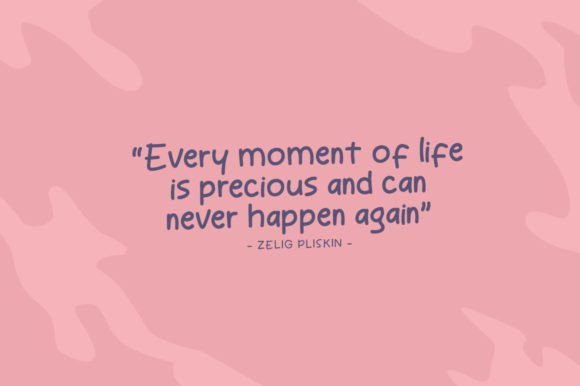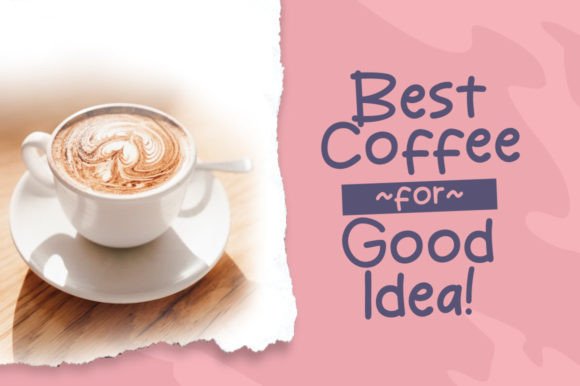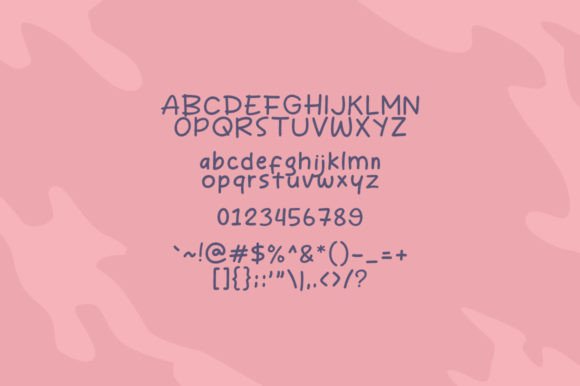
Introduction to Howlimit Font
As a designer, have you ever stared at a blank canvas, eager to bring your creative vision to life, only to be stumped by the perfect font? The struggle is real, but what if I told you that there’s a game-changing font that can elevate your designs and make them truly stand out? Say hello to the Howlimit Font, a modern and fancy display font that’s perfect for posters, logos, magazines, book covers, banners, and so much more.
With its sleek and sophisticated design, the Howlimit Font is a valuable resource for designers who want to add a touch of elegance to their creative projects. Whether you’re working on a high-end marketing campaign or a personal art project, this font is sure to impress. Plus, its transparent background makes it easy to match with any design element, giving you the freedom to be creative and experiment with different looks.
Key Features of Howlimit Font
- Unique characteristics: A modern, sans-serif font with a clean and minimalist aesthetic, perfect for creating a professional and sophisticated look.
Honest Review: Howlimit Font
As a designer, I’m always on the lookout for high-quality design resources to enhance my creative projects. The Howlimit Font caught my attention with its unique style and versatility.
- ✨ Unique and creative font style that adds a touch of sophistication to any design project.
- ✨ High-quality design that’s suitable for both print and digital projects.
- ⚠️ Limited font variations, which may not be ideal for designers who prefer a wider range of options.
Overall, I’m impressed with the Howlimit Font’s potential to elevate a design project. While it may not be perfect, it’s a great resource for designers who want to add a touch of creativity to their work.
Common Use Cases for Howlimit Font
Howlimit Font is a versatile design resource that can be used in a variety of creative projects, including logos, branding materials, and social media graphics. Its unique characteristics make it particularly well-suited for use in digital designs, where a high-quality and visually appealing font is essential.